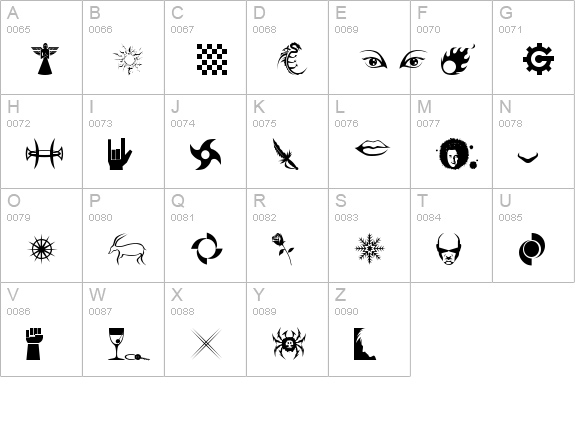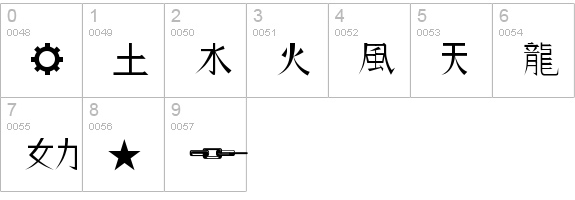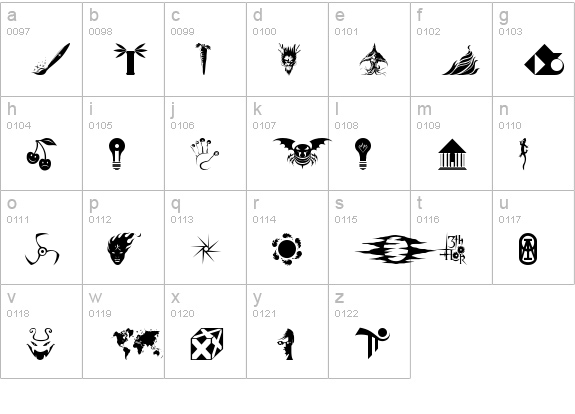
Hong's 2 Dings Font Details
Introducing the exquisite and versatile Hong's 2 Dings font, a timeless design that effortlessly combines elegance with a touch of playfulness. This unique font features intricate and ornate dingbat characters that add a charming and whimsical element to any project. With its clean lines and stylish appearance, Hong's 2 Dings font is perfect for a wide range of applications, from branding and packaging to invitations and social media graphics. What makes Hong's 2 Dings font even more appealing is that it is available for free download at FontsMarket.com. This means you can easily access this stunning font and elevate your designs without breaking the bank. Whether you're a seasoned designer looking to add a fresh twist to your work or a hobbyist looking to explore new creative possibilities, Hong's 2 Dings font is sure to inspire and delight. Download this beautiful font today and let your imagination soar!